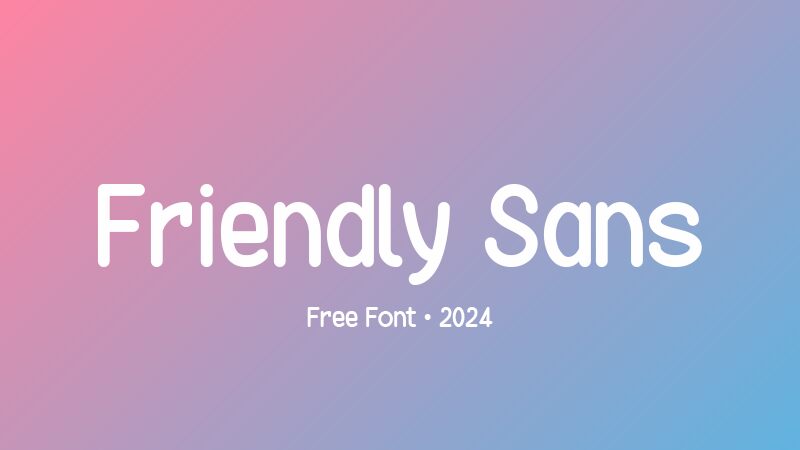
Friendly Sans
Friendly Sans font is a delightful script creation by GGBotNet, blending modern clarity with an approachable warmth. Its rounded, clean appearance offers a welcoming and versatile style, reminiscent of schoolbook writing. This font's engaging simplicity makes it suitable for capturing attention in both professional and casual contexts.
As a free script font, Friendly Sans fits perfectly into school projects, educational materials, invitation cards, event posters, branding designs, logotypes, inspirational quotes, notebook covers or wallpapers. Turn regular text into attractive captivating artwork that impresses at first glance!